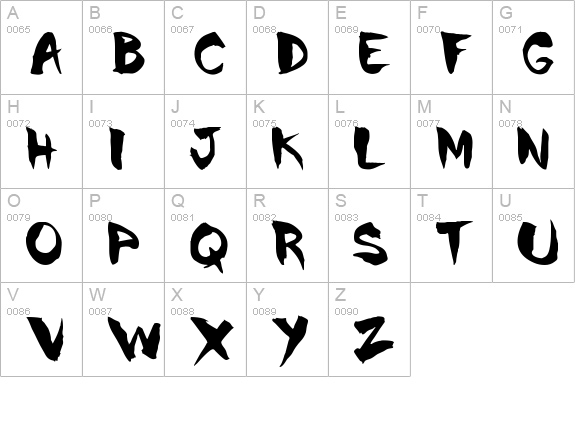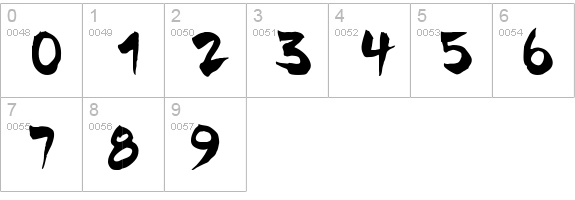
Introducing Chinela Brush font, a unique and versatile typeface that combines modern elegance with a touch of whimsy. This handcrafted brush script font features stylish curves and a playful vibe, making it perfect for a wide range of design projects. Whether you're creating invitations, posters, logos, or social media graphics, Chinela Brush font is sure to make your text stand out. The best part? Chinela Brush font is completely free to download at FontsMarket.com. Yes, you read that right - you can add this stunning font to your collection at no cost. So why wait? Elevate your designs with the charm and character of Chinela Brush font today!